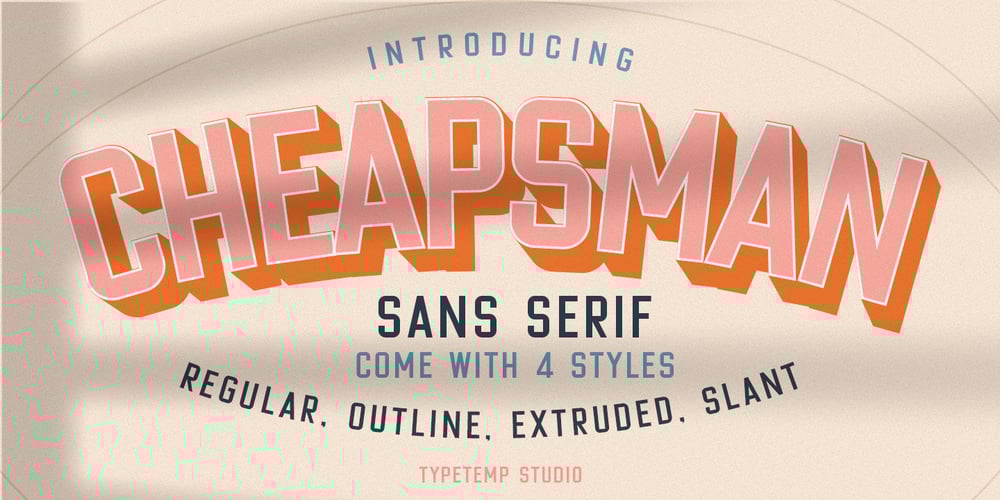
Cheapsman Font Family was designed by Egi Ahmad Mufid and published by Typetemp Studio. Cheapsman contains 4 styles and family package options. Cheapsman Sans is a sans serif display bold modern that is suitable for logo, branding, weddings, social media, product design, stationery, advertising other romantic projects. anything.Features : Basic Latin A-Z and a-z Alternate Numbers Symbols Ligature Kerning To enable the OpenType Stylistic alternates, you need a program that supports OpenType features such as Adobe Illustrator CS, Adobe Indesign & CorelDraw X6-X7.There are additional ways to access alternates/swashes, using Character Map (Windows), Nexus Font (Windows), Font Book (Mac) or a software program such as PopChar (for Windows and Mac).Thanks and have a wonderful day,